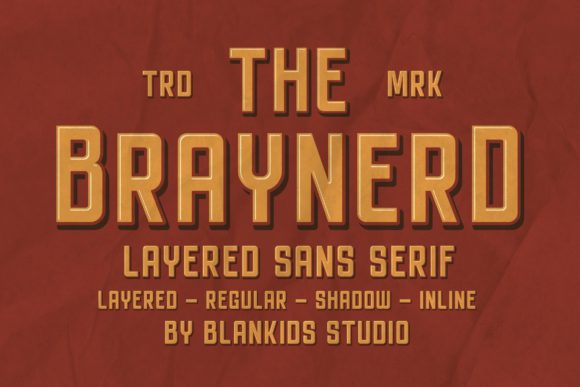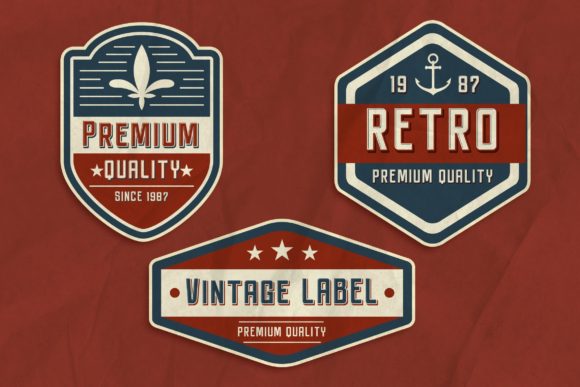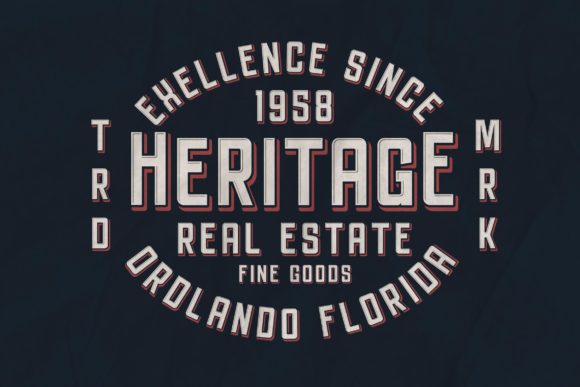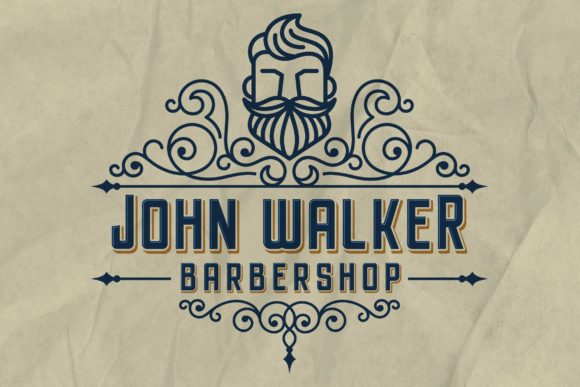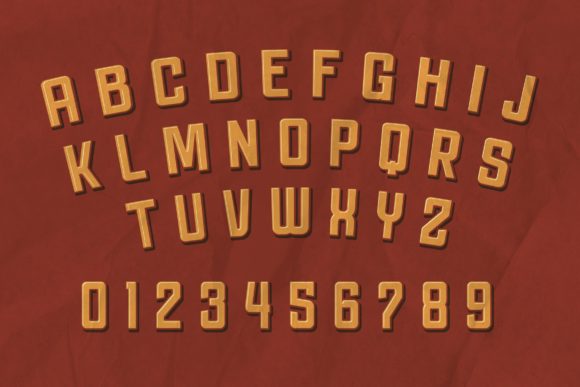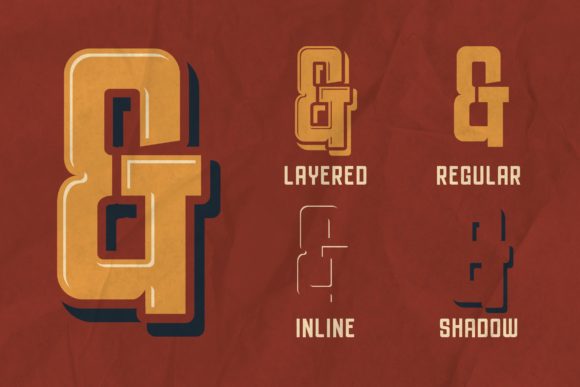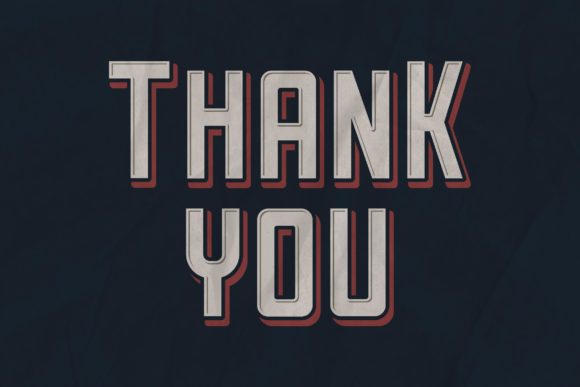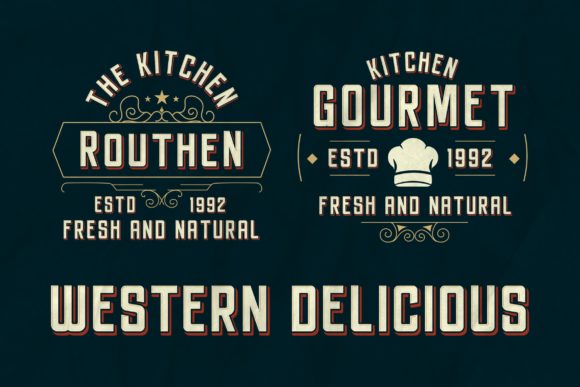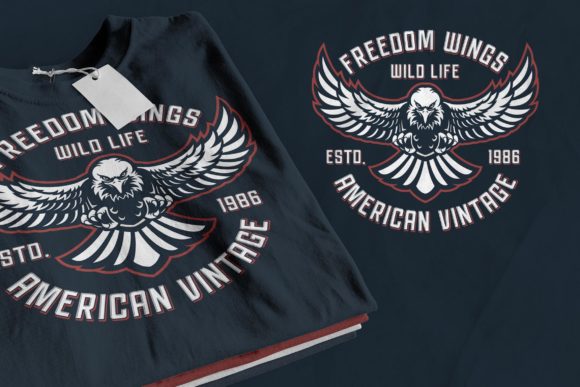
Braynerd Font
About Braynerd Font
Braynerd is a charming sans serif font. Get inspired by its authentic feel and use it to create amazing designs.
this font can be used in a wide variety of applications from logos to creative posters and more, the only limit is your imagination!